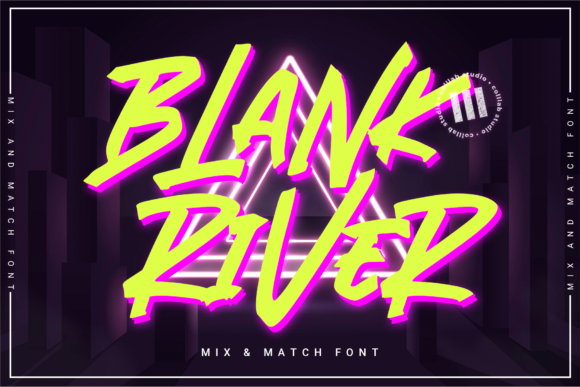
Presenting Blank River Font: A Captivating Display Font That Transforms Your Designs
In a world of digital noise, it's the captivating fonts that truly stand out, leaving an indelible mark on the minds of your audience. Meet Blank River Font, a remarkable display font poised to elevate your design projects to the pinnacle of creativity.
Crafted by the visionary minds at colllabstudio, Blank River Font is a testament to the power of visual communication. Its distinctive letterforms, meticulously designed with precision and flair, command attention and create a lasting impression.
Whether you're a seasoned graphic designer or a budding entrepreneur, Blank River Font is your ultimate creative companion. It seamlessly adapts to a myriad of design endeavors, from branding and logos to headings and labels. Its versatility knows no bounds, making it the font of choice for those who seek distinction and impact.
Immerse yourself in the world of Blank River Font and discover a treasure trove of creative possibilities. Let its bold strokes and dynamic curves ignite your imagination and propel your designs to new heights of excellence.
Benefits of Harnessing Blank River Font:
- Elevate Your Designs: Blank River Font possesses an inherent ability to elevate your designs, adding a touch of sophistication and allure that sets them apart from the ordinary.
- Ignite Creativity: With its captivating charm, Blank River Font sparks creativity and unleashes a torrent of innovative design ideas. Its unique letterforms become the catalyst for visual masterpieces.
- Make a Lasting Impression: In a competitive digital landscape, it's the fonts that leave a lasting impression. Blank River Font ensures your designs are remembered long after they're seen, creating a lasting connection with your audience.
- Stand Out from the Crowd: Dare to be different and let Blank River Font set your designs apart from the monotonous crowd. Its distinctive style ensures your creations shine with originality and leave a lasting impact.
Don't settle for ordinary fonts that blend into the background. Embrace the power of Blank River Font and embark on a creative journey that will leave your audience spellbound. Transform your designs into captivating masterpieces and elevate your brand to new heights of success.